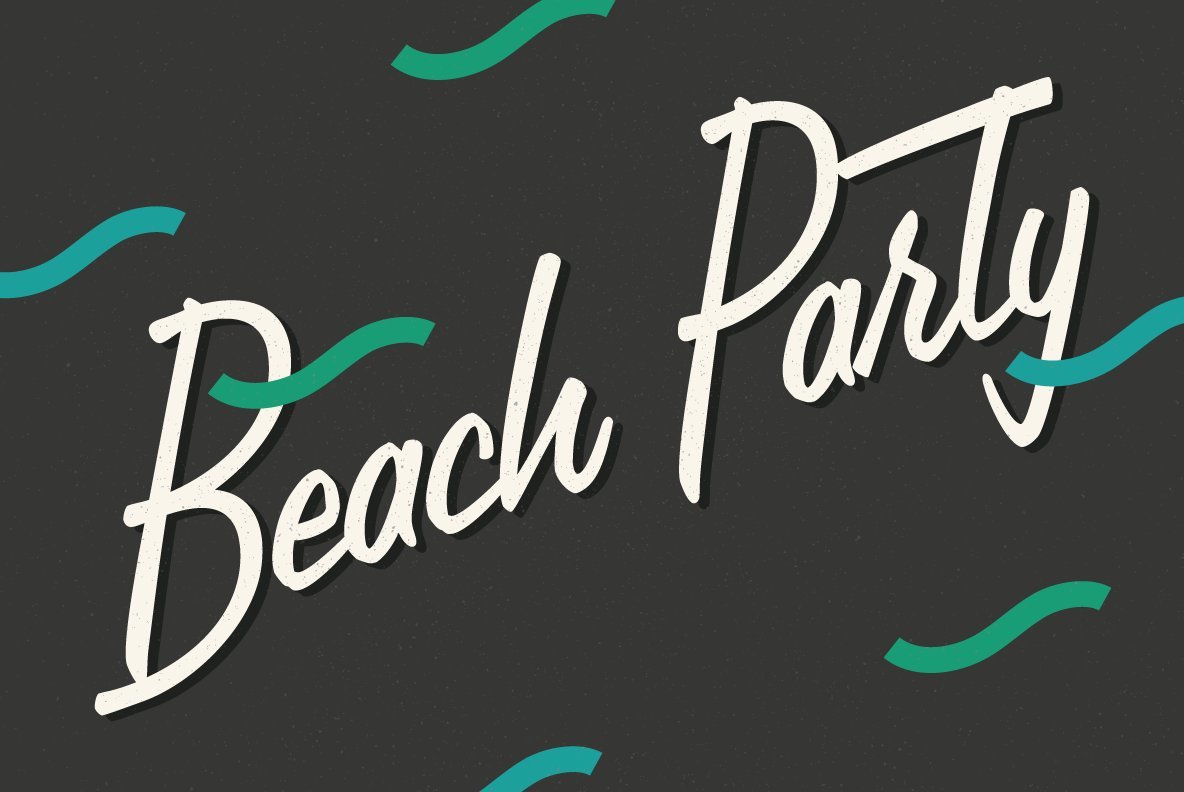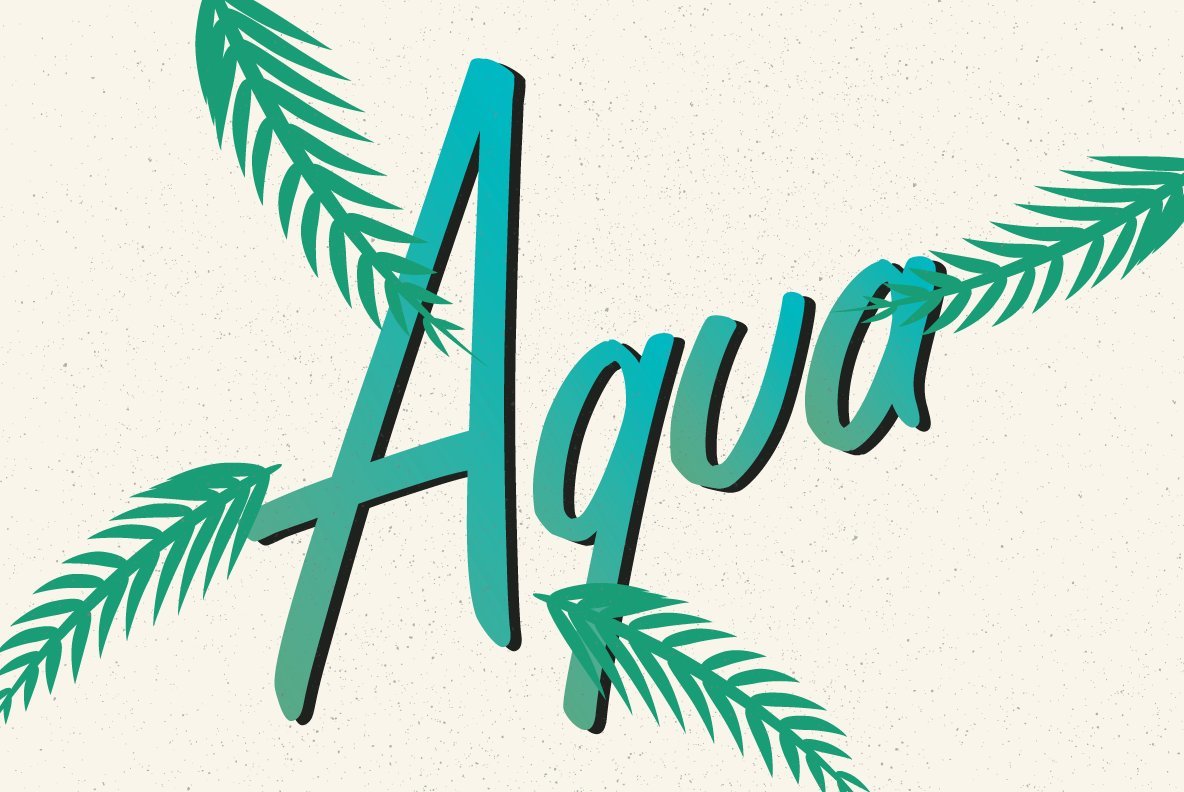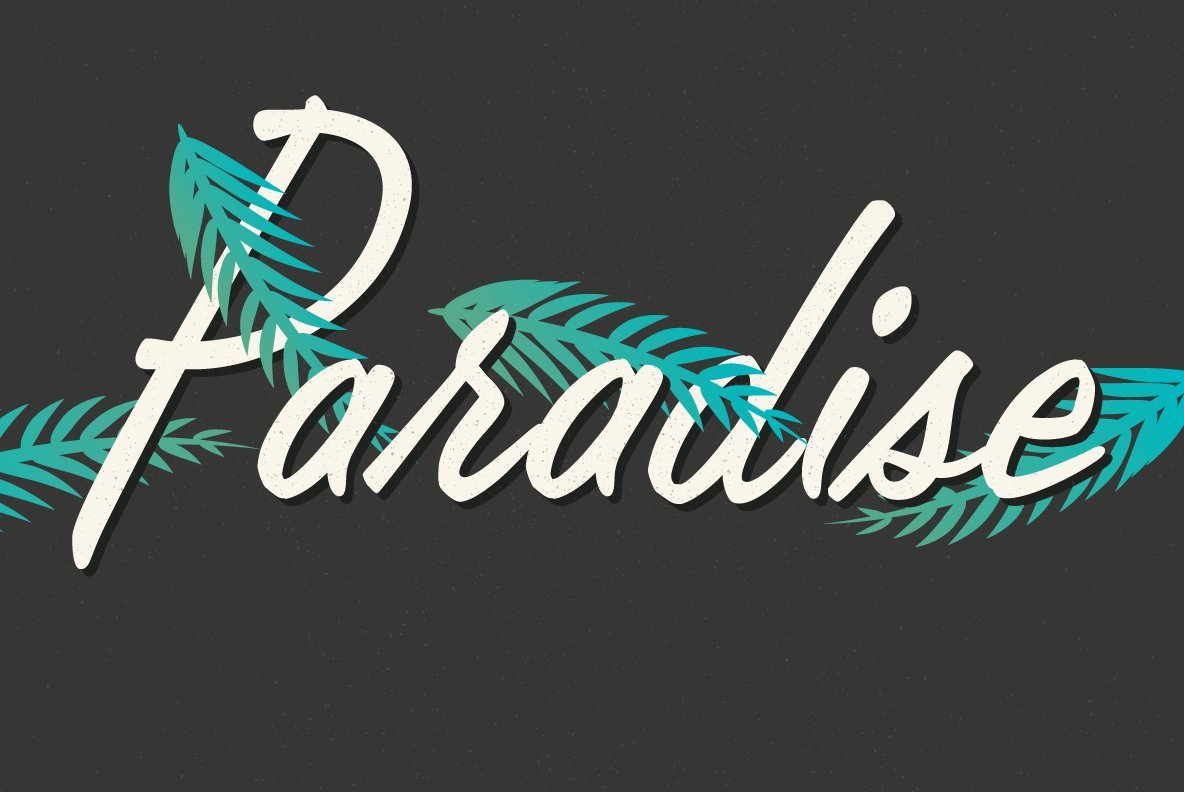
Lamplighter Script
Foundry: Font Diner
Looking for a good time? Head to the Lamplighter and dig in to this handpainted brush script of fabulous proportions!